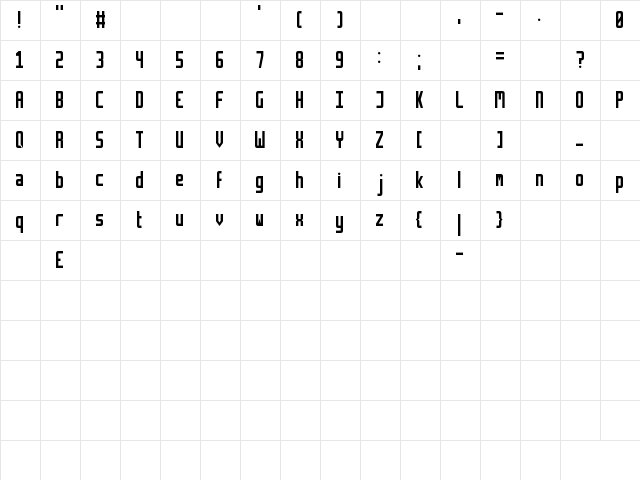
Retriga Regular
Design Context for Retriga Typeface
Retriga takes a measured approach to typography — its balanced proportions and neutral character make it a reliable workhorse for both digital and print work.